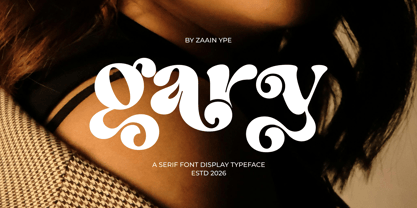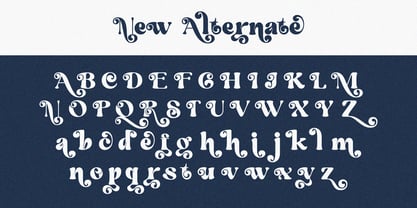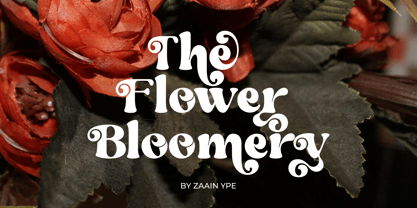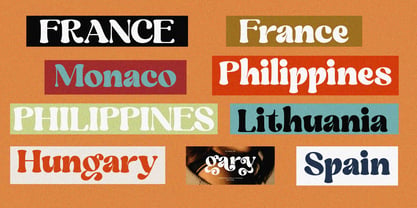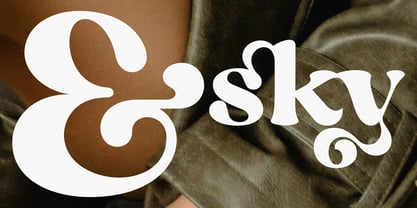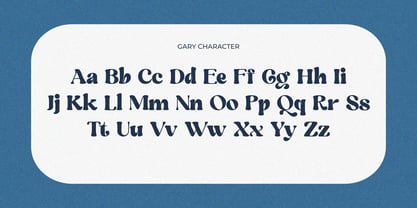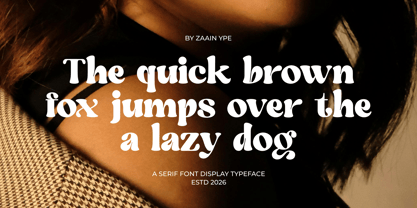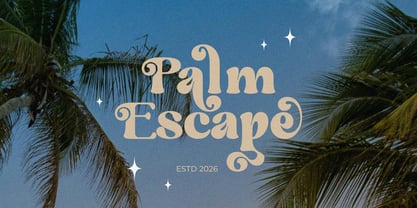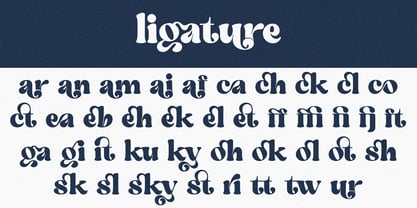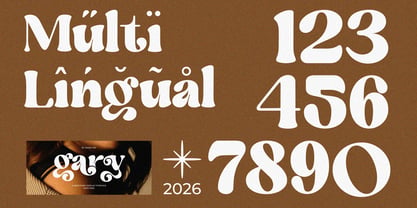
Gary
by Zaain Type
The Gary Font Family was designed by Ju Naen and published by Zaain Type. Gary contains 1 styles. More about this family
Gary is a modern serif typeface that blends timeless elegance with contemporary sophistication. Designed with refined curves, balanced proportions, and distinctive character details, Gary delivers a graceful presence across a wide range of design applications. From luxury branding and editorial layouts to packaging and invitations, this typeface brings a sense of confidence, style, and professionalism.
Its versatile letterforms create beautiful readability while maintaining a strong visual identity, making Gary an excellent choice for designers seeking a serif font that feels both classic and fresh. Whether used for striking headlines or refined body text, Gary adds a touch of elegance to every project
Designers: Ju Naen
Foundry: Zaain Type